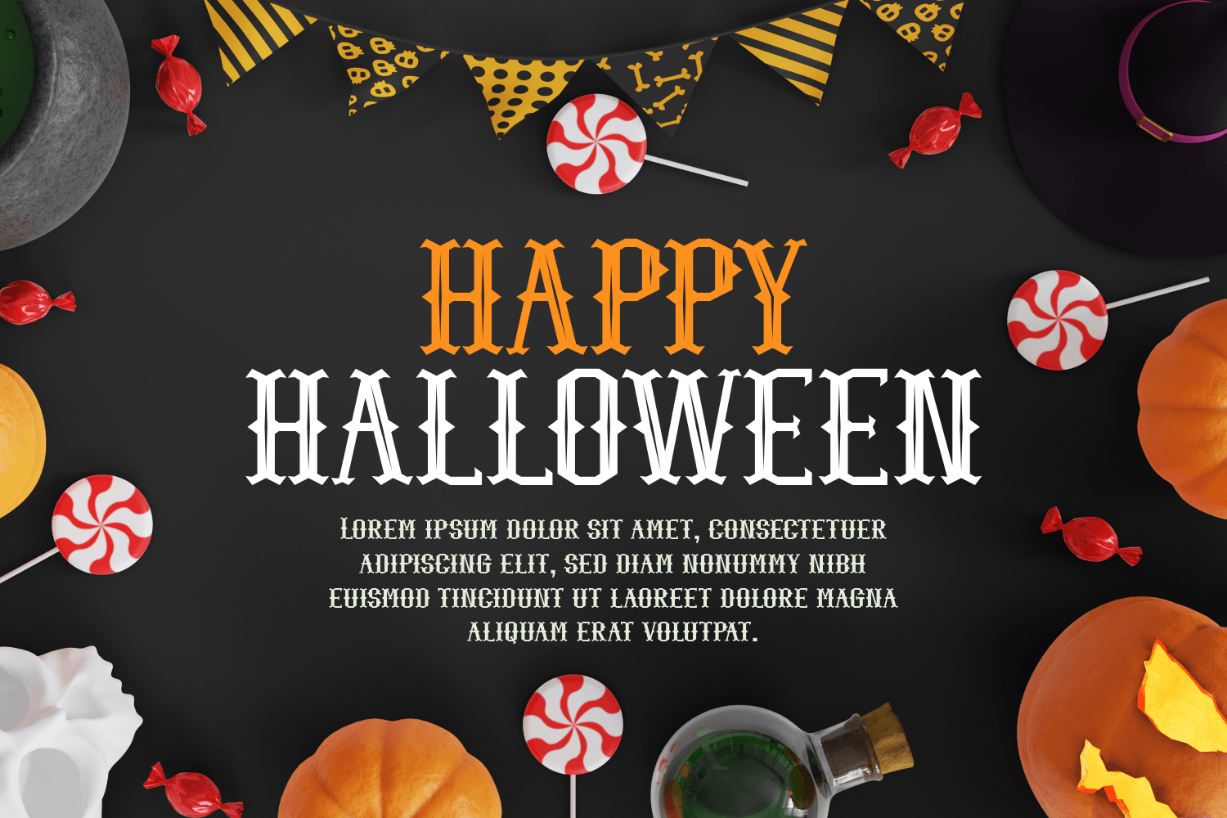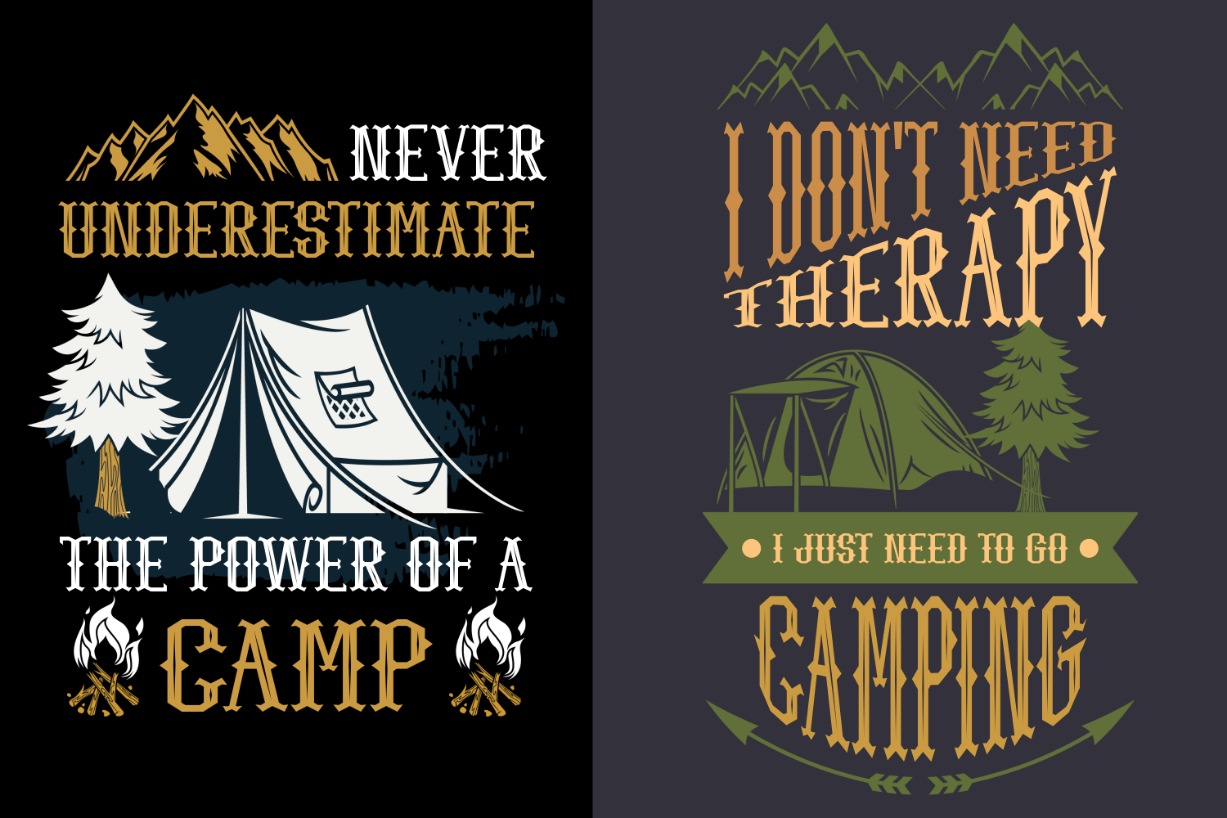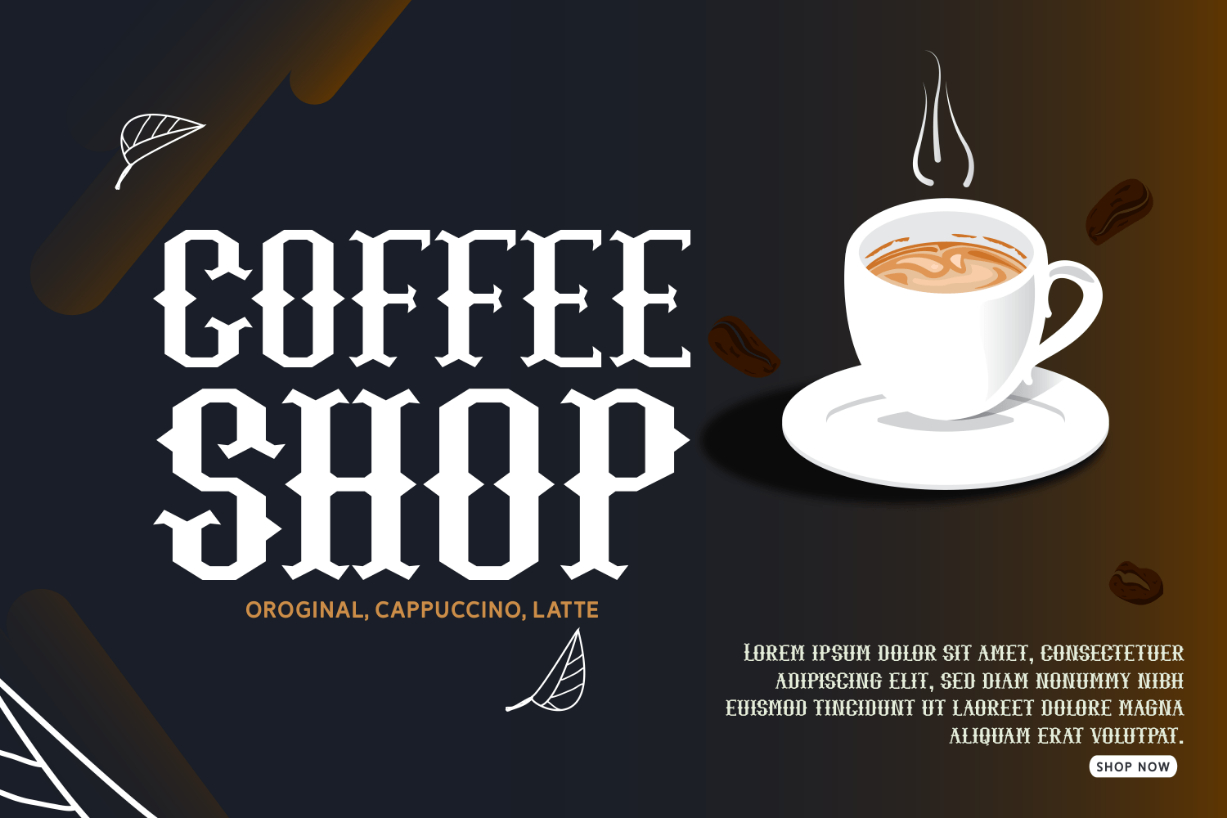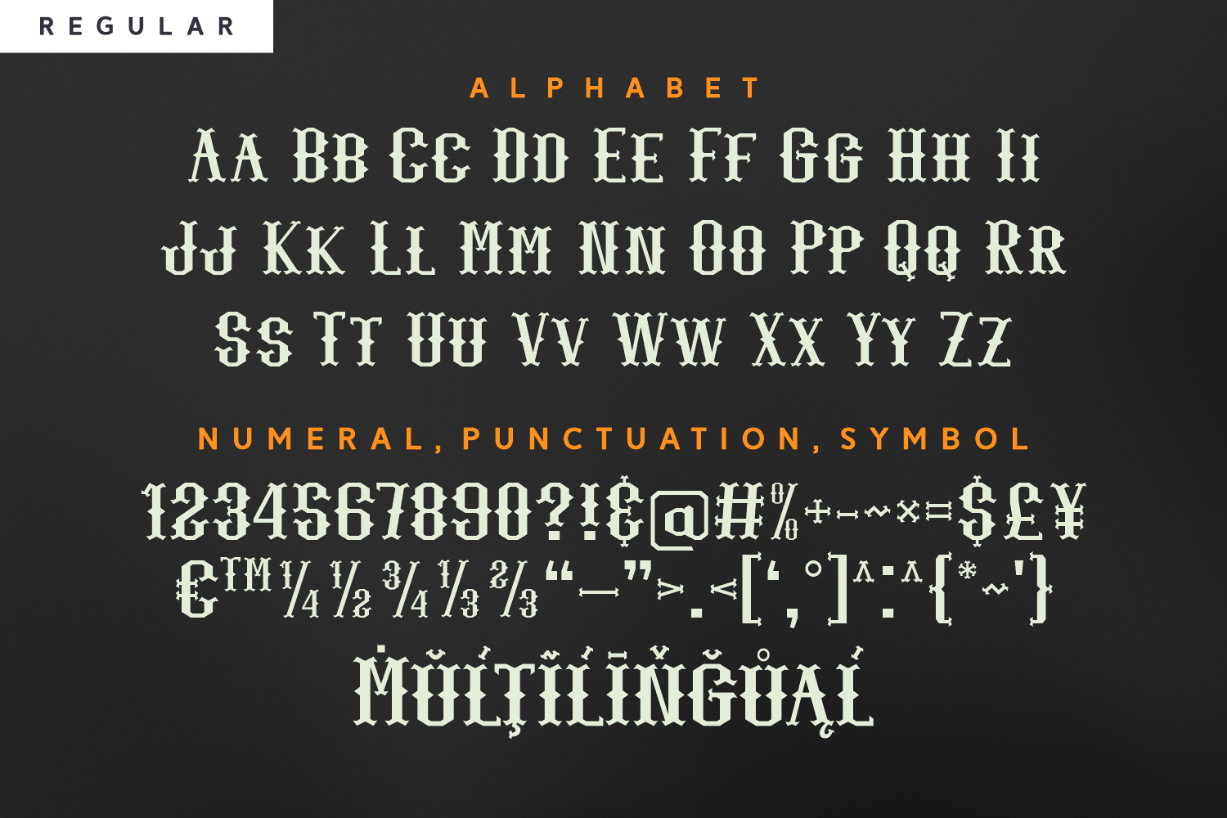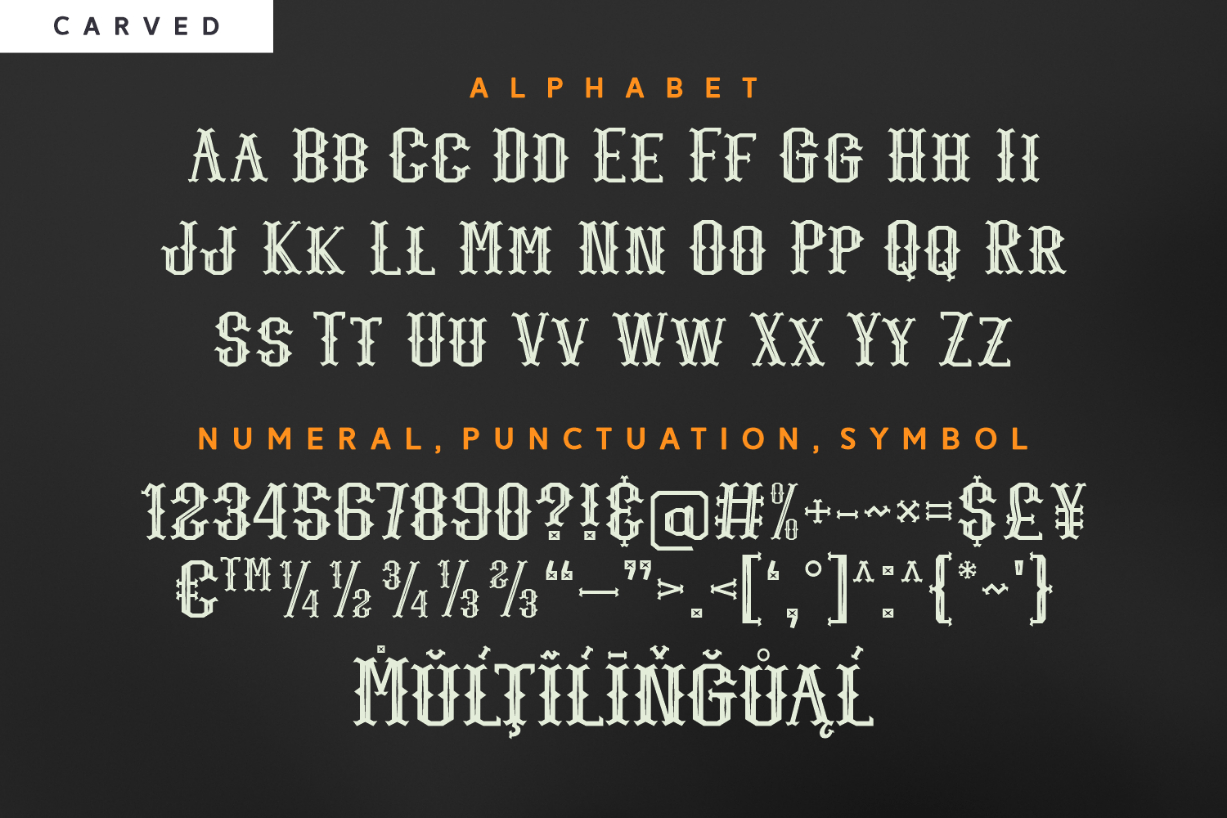
Marvin Bright Font
About Marvin Bright Font
Marvin Bright is a mysterious blackletter font. Add it to your font library and start creating thrilling Halloween projects, or any other project that needs a touch of an enigma! Use it on t-shirt designs, paper crafts, web graphics, and more.